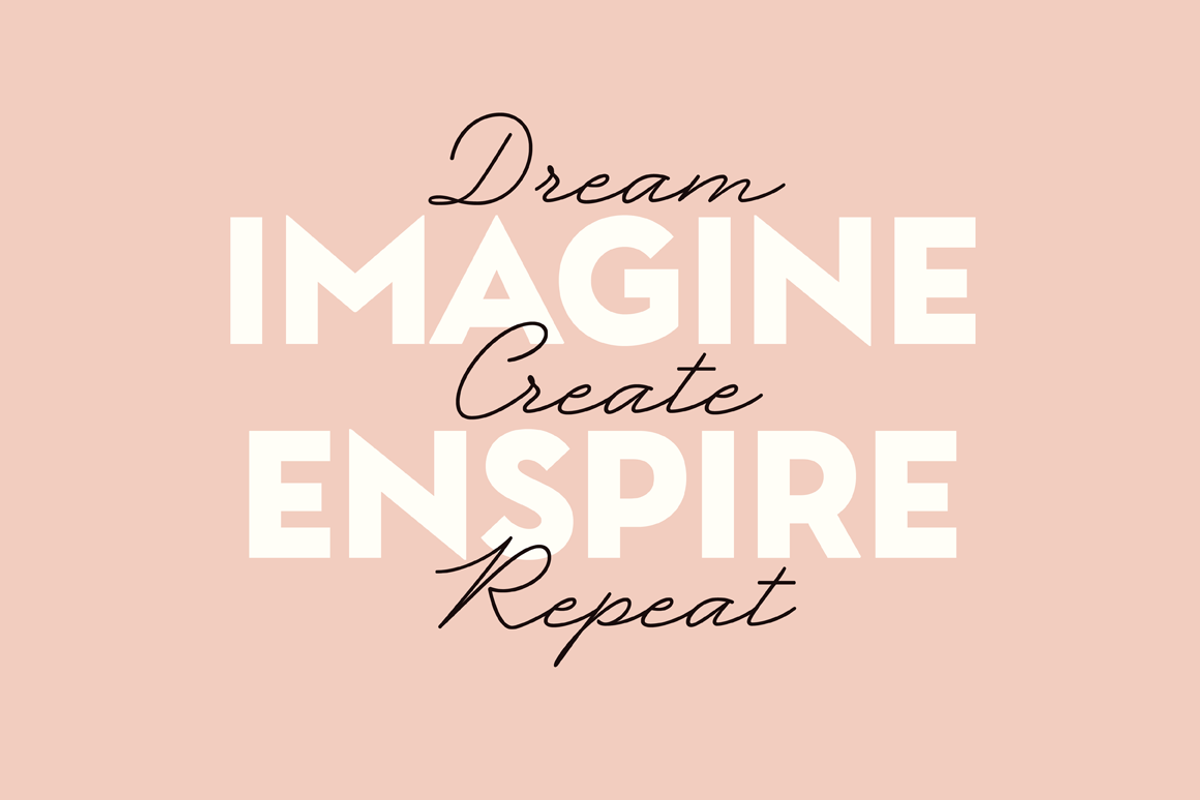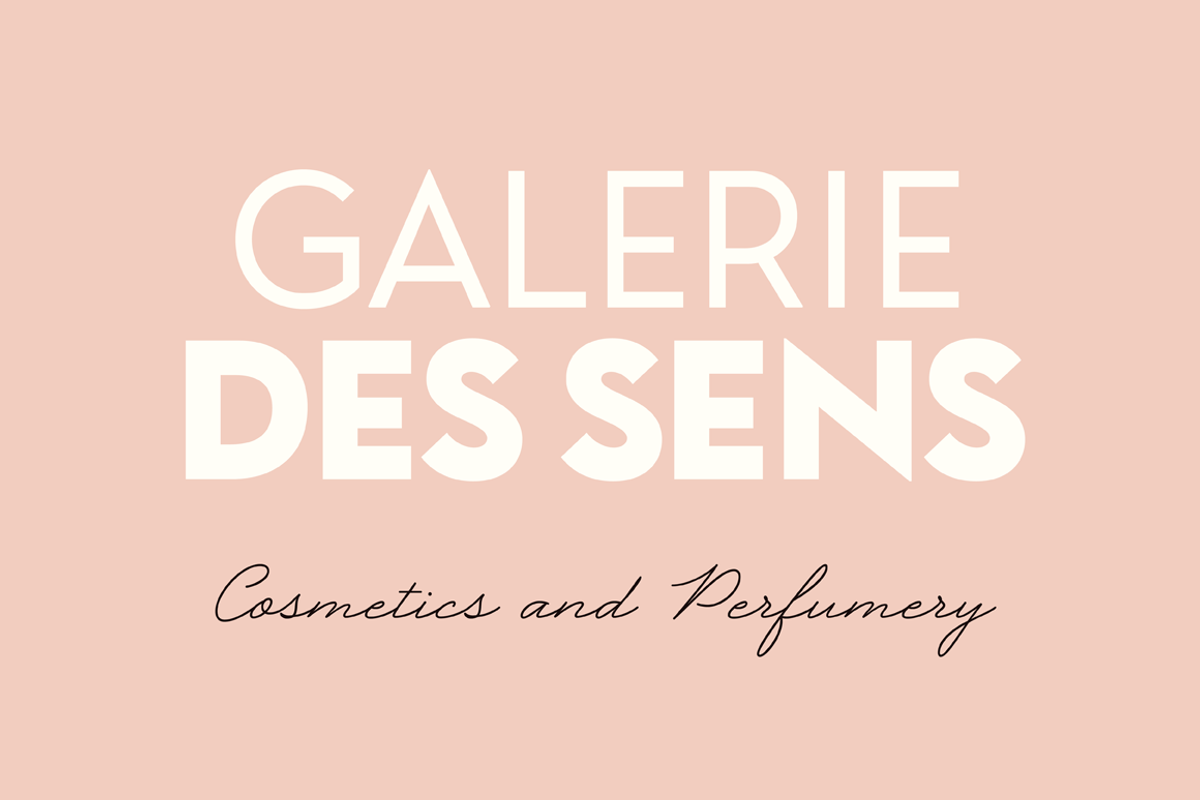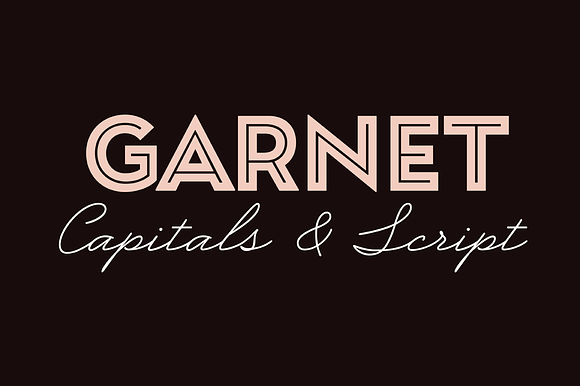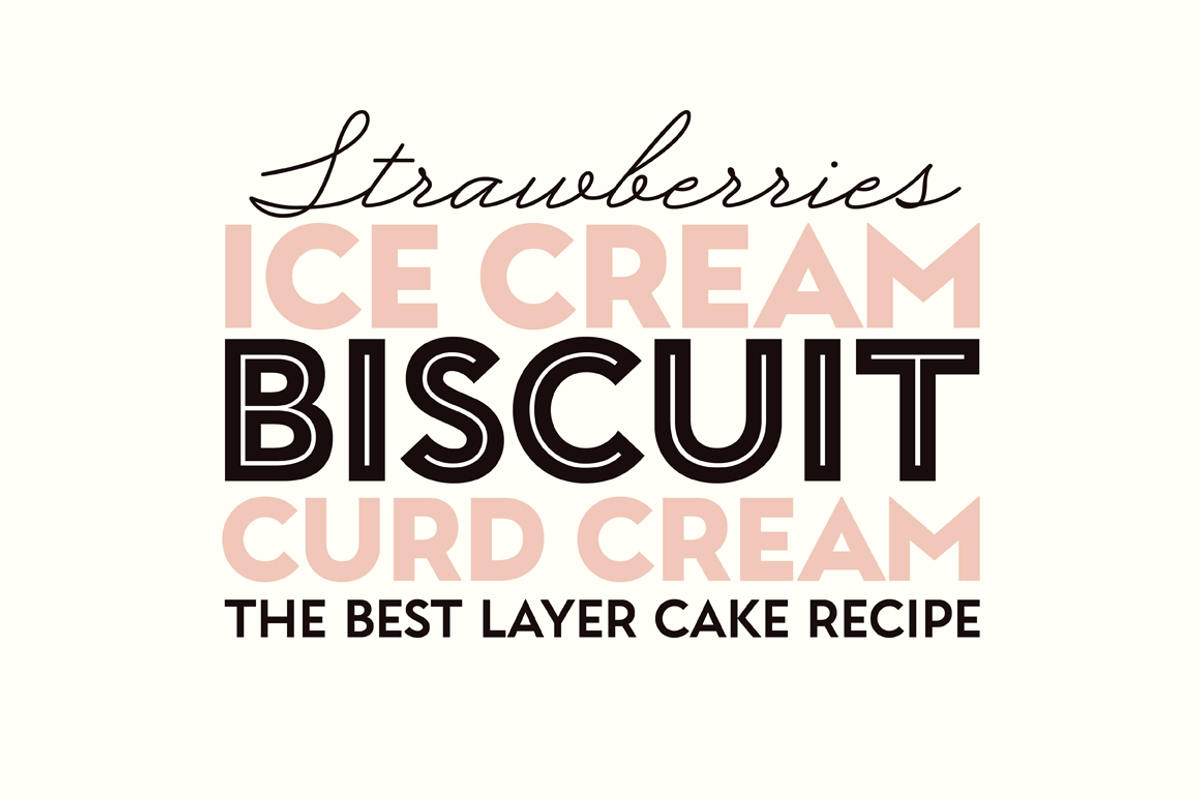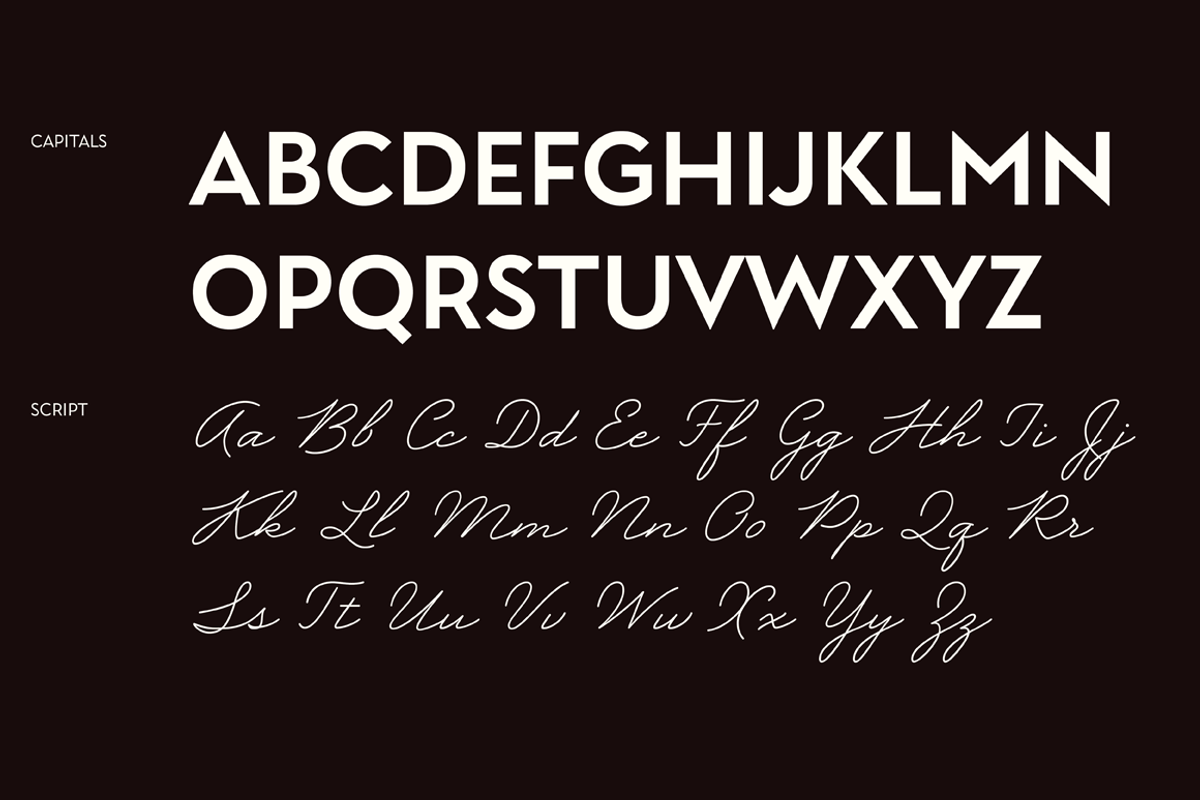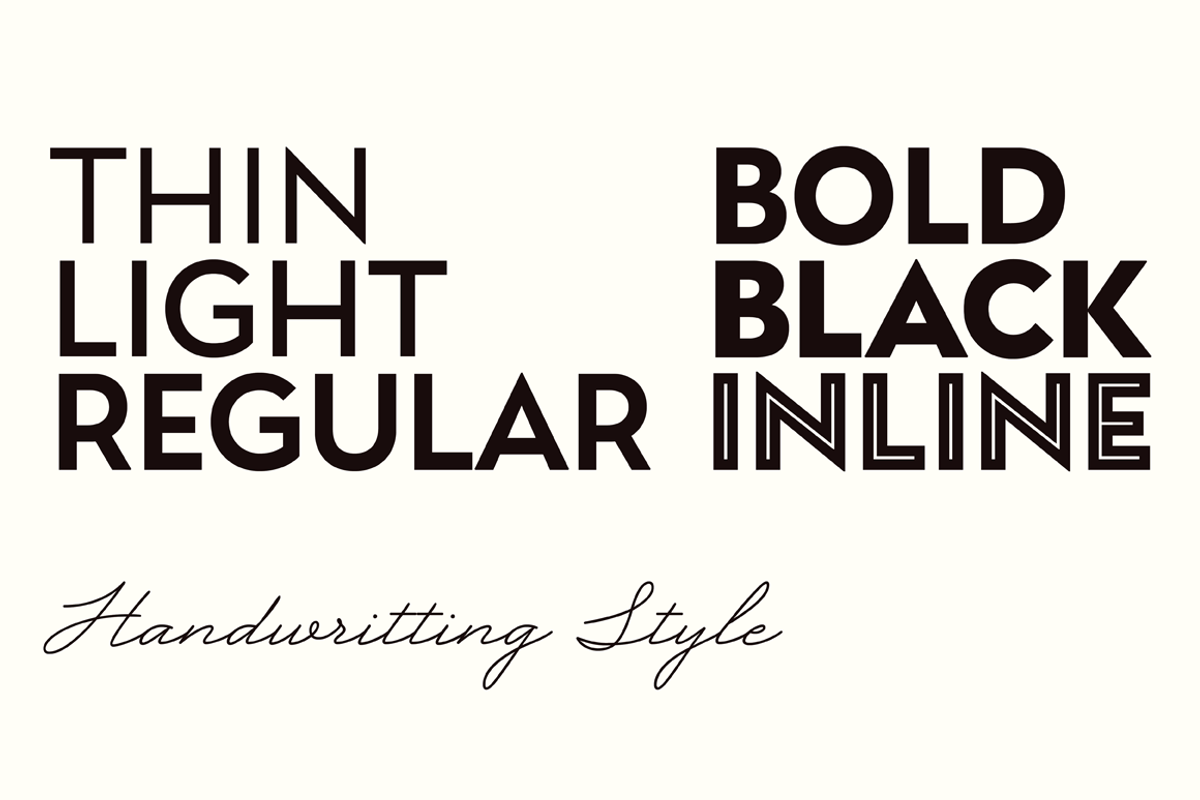
Garnet Font Family
Garnet as a modern font kit inspired by fonts and calligraphy of XX centure. It includes Capitals (6 Styles) and Script Font so you can combine them as you like. Geometric Sans + Handwritten Script is a modern and fresh looking combination which can be used for many tasks. Garnet is good for headlines, posters, packaging, book covers, cards and as a starting point for logotypes.
- It includes Capitals (6 Styles) and Script Font so you can combine them as you like.
- Garnet Capitals Thin
- Garnet Capitals Light
- Garnet Capitals Regular
- Garnet Capitals Bold
- Garnet Capitals Black
- Garnet Capitals Inline
- Garnet Script Regular
Why Garnet Font Family is worth a look
Garnet Font Family by Ksenia Belobrova fits naturally into Branding, posters, packaging, typography.